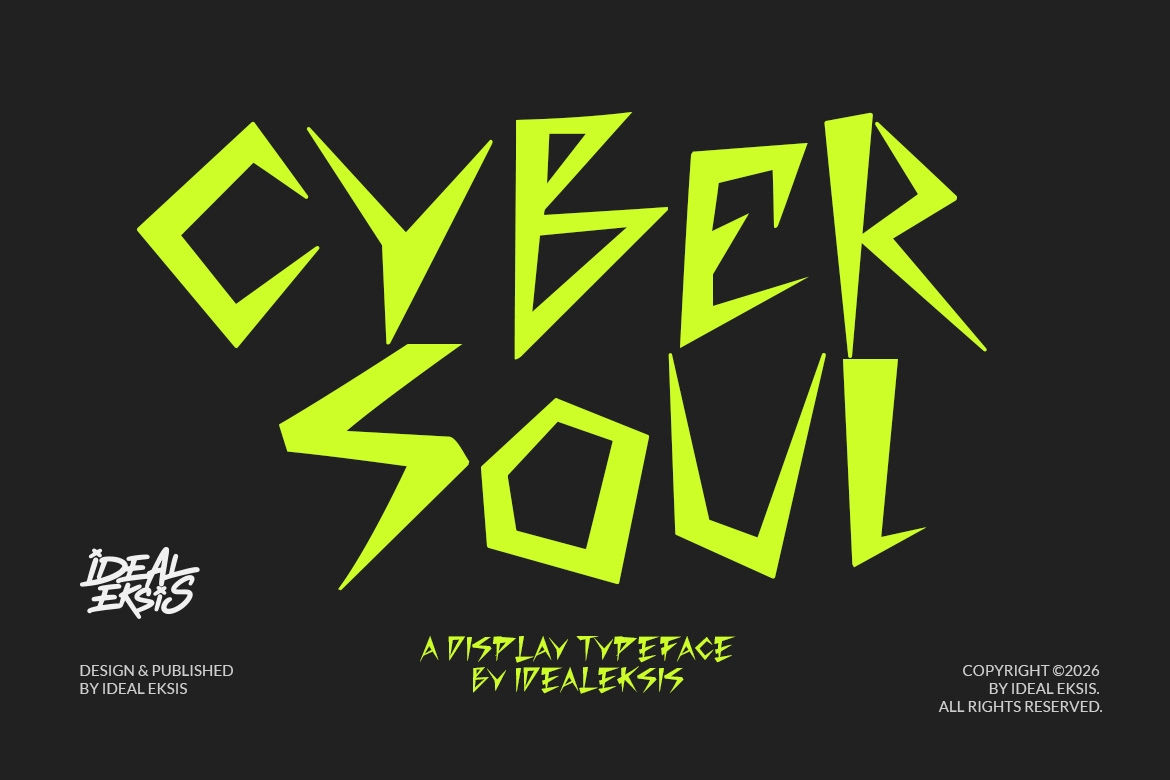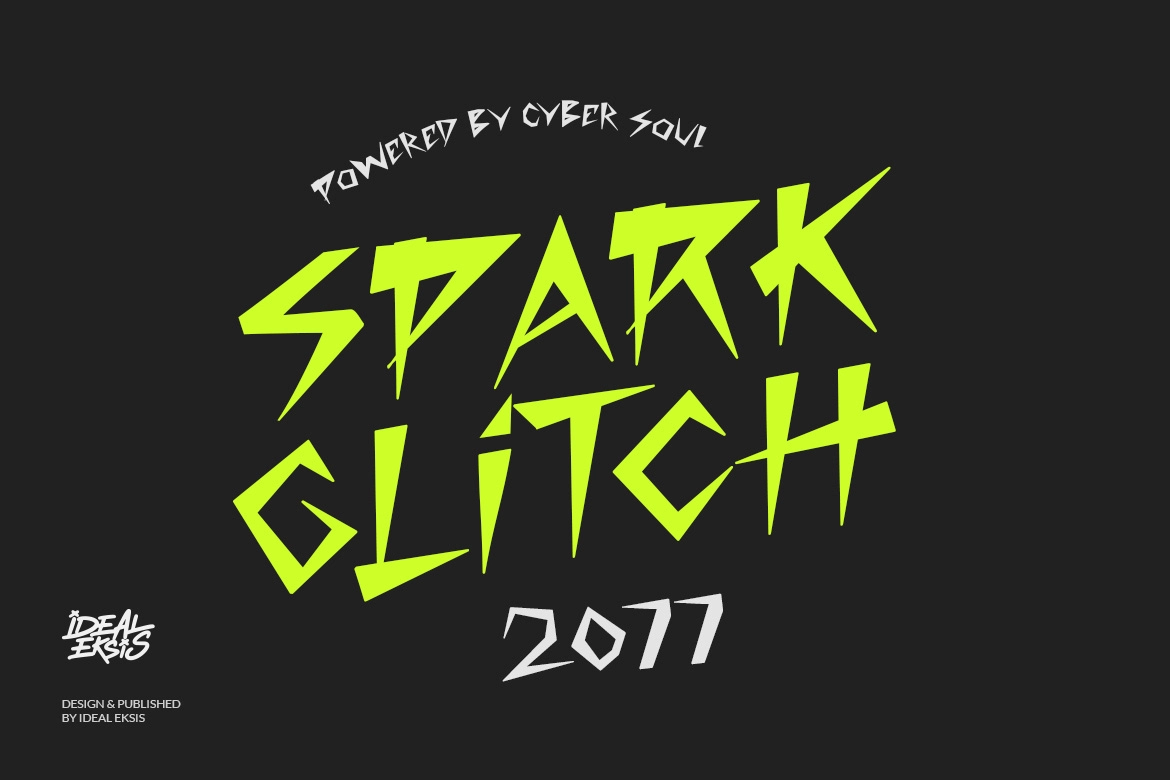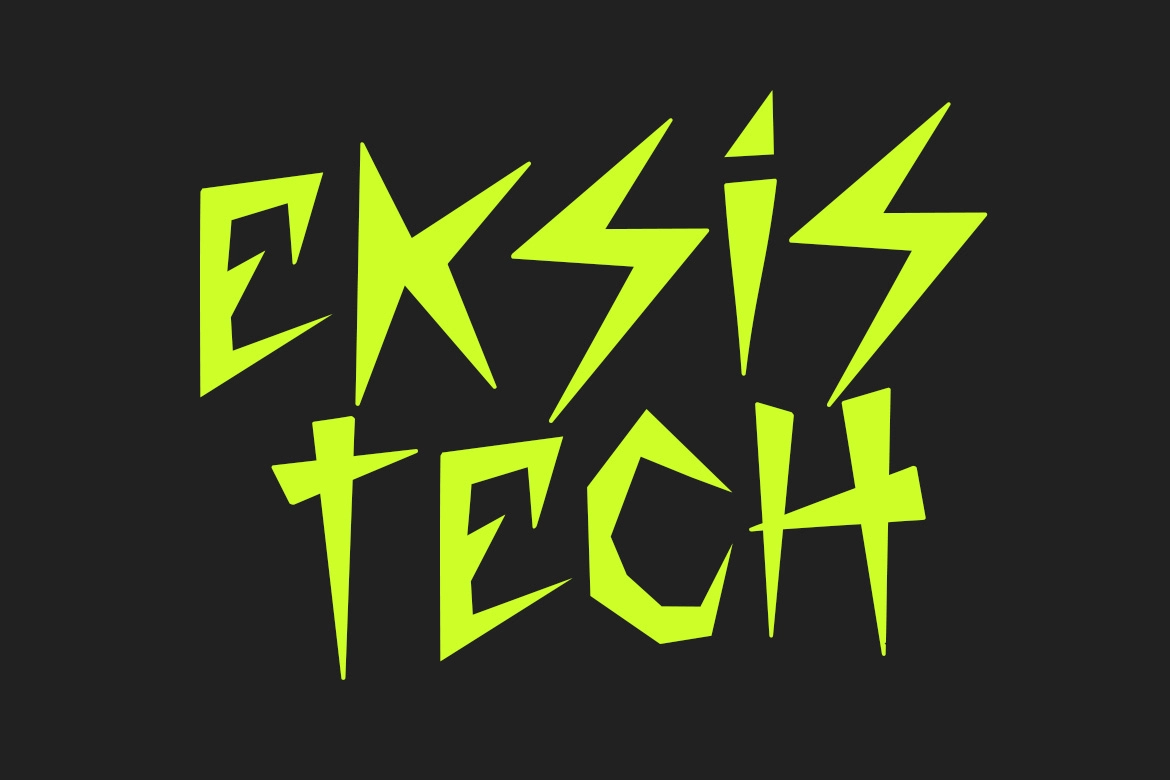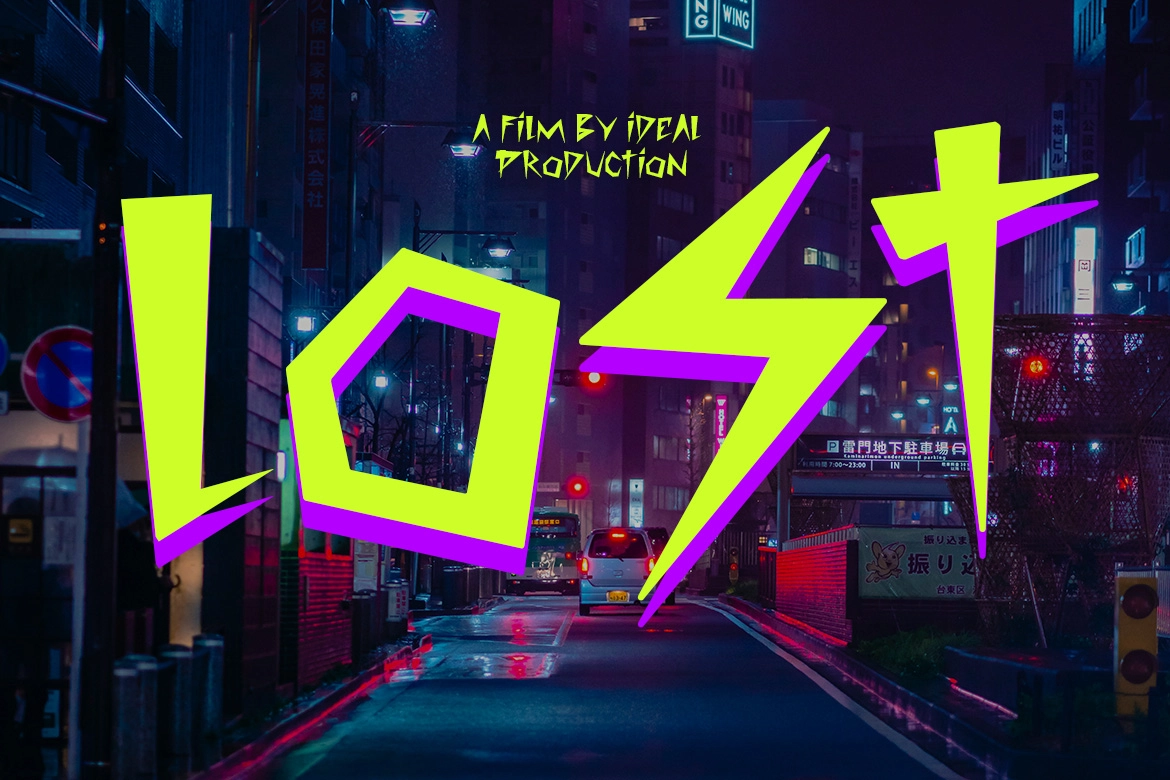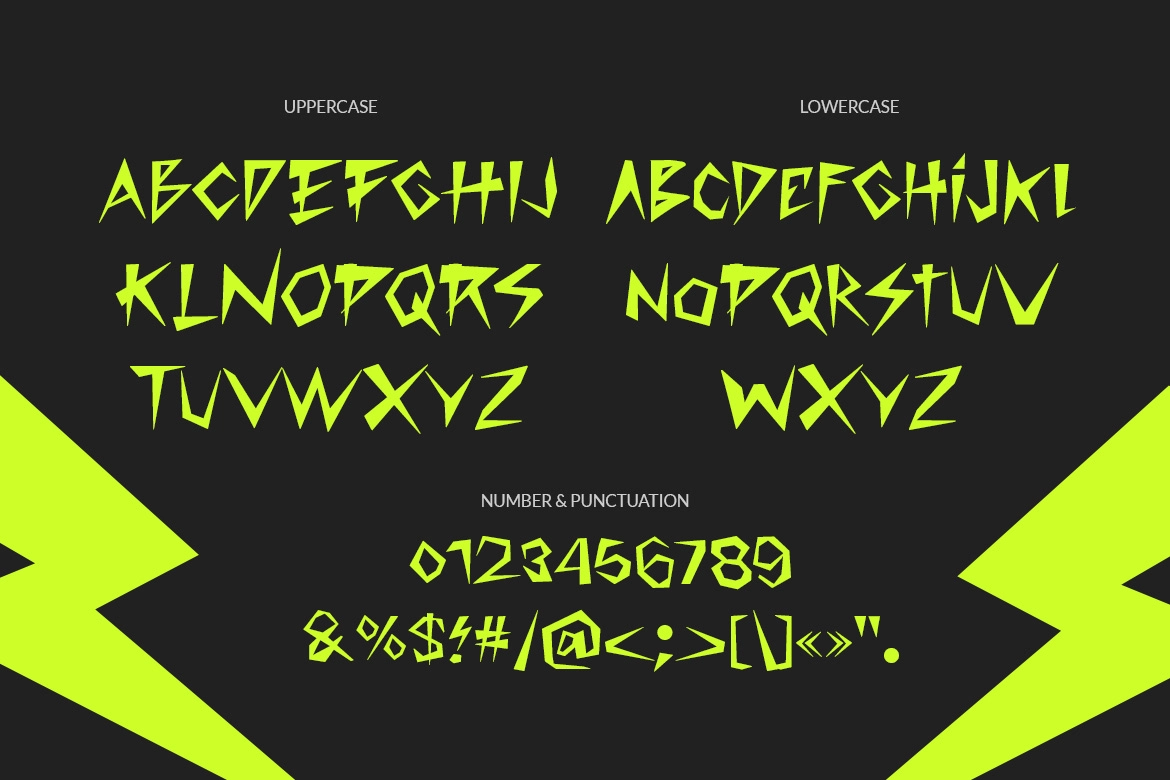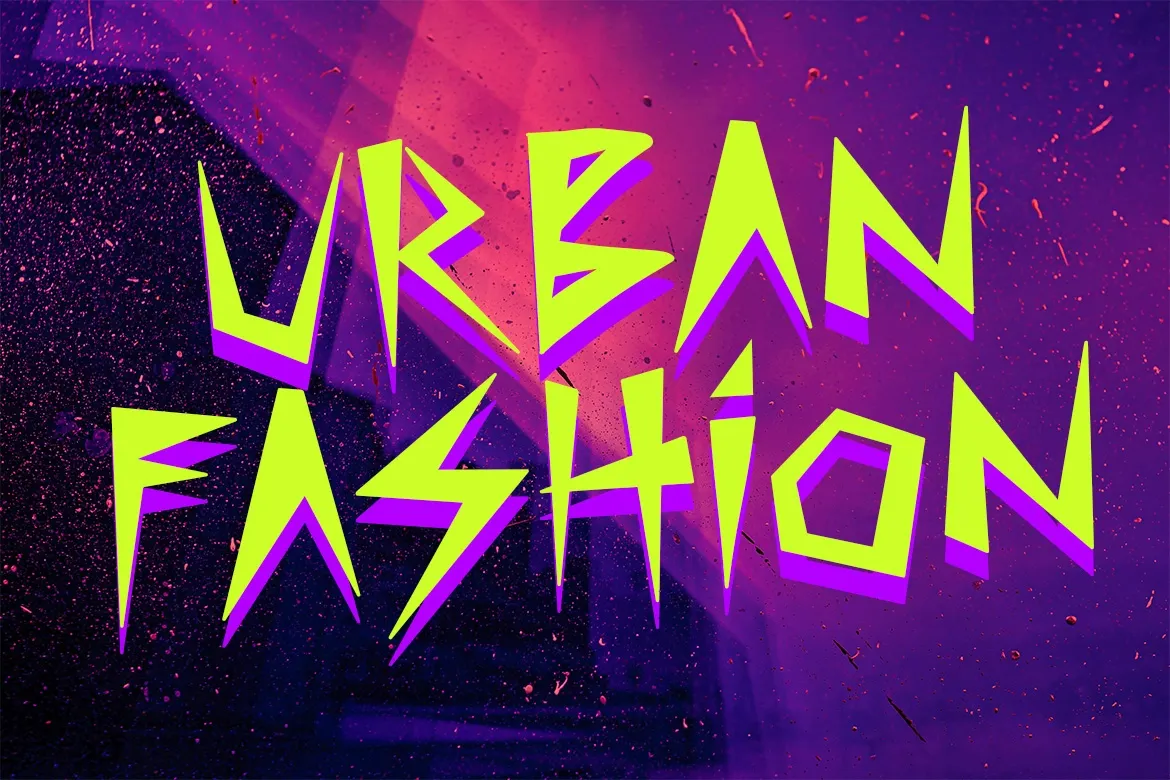
Cyber Soul - Futuristic Display Font
Cyber Soul
Cyber Soul – Futuristic Display Font is a sharp, high-energy display typeface built with aggressive geometric forms and needle-like terminals. Its jagged letterforms and irregular stroke angles create a striking cyberpunk aesthetic that feels electric, rebellious, and futuristic. The angular shapes give every word a powerful visual punch, making it ideal for bold and experimental design work.
Perfect for sci-fi posters, gaming graphics, esports branding, tech branding, and futuristic headlines, Cyber Soul delivers a strong digital attitude that instantly stands out in modern visual projects.